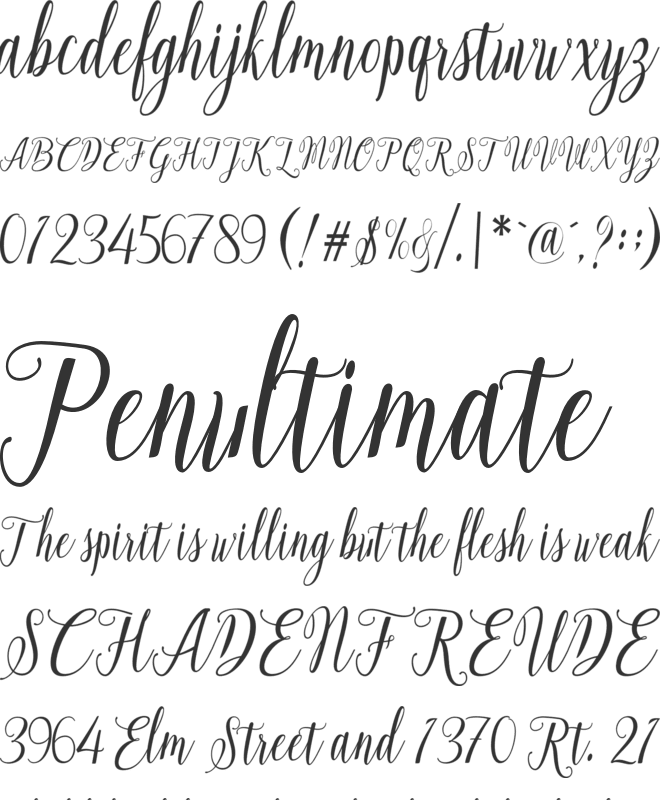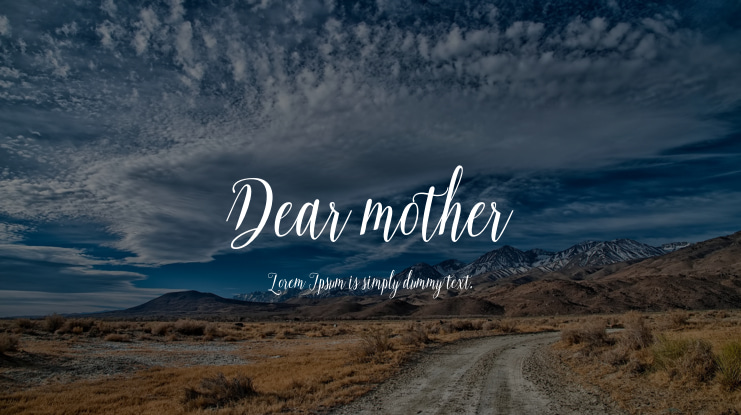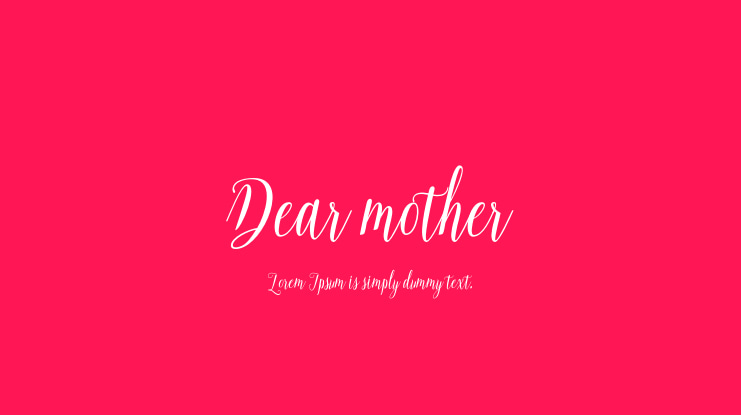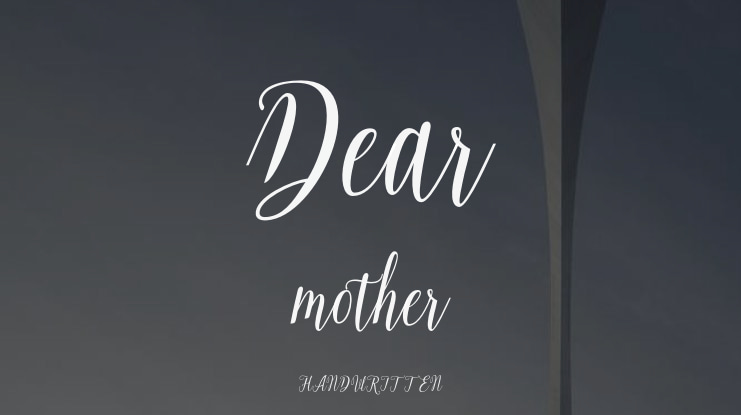
Dear mother Font
Dear Mother is a beautiful and elegant handwritten font that offers a unique feel and stunning impact. It will add a touch of luxury to any design project you wish to create! This font is PUA encoded, which means you can effortlessly access all of its amazing glyphs and ligatures.